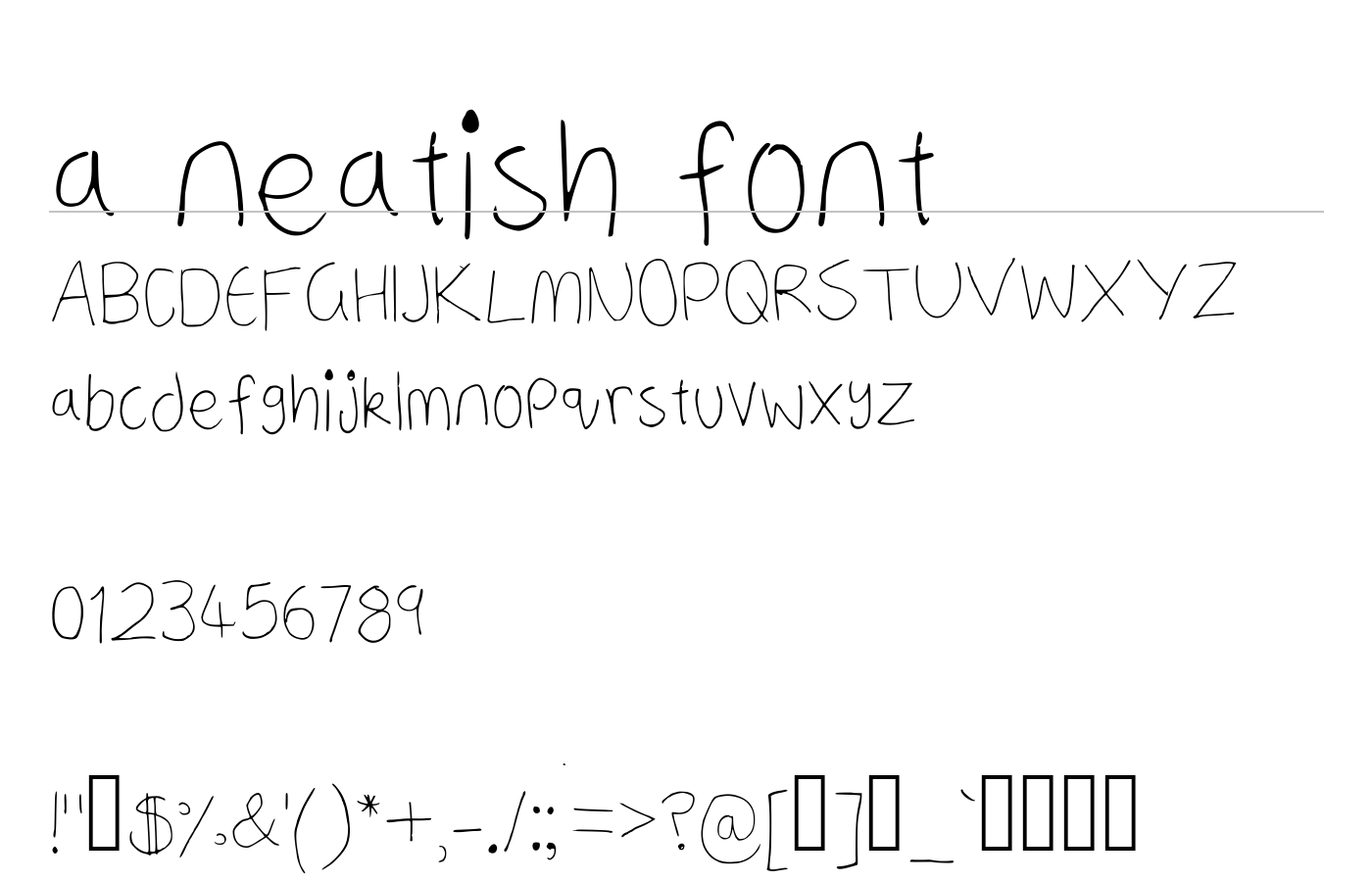
A Neatish Font is a playful, handwritten sans serif typeface with a light weight and narrow width that gives it a casual and friendly appearance. Its tall x-height and uneven stroke endings add a relaxed, approachable feel, making it perfect for informal designs, children’s projects, personal branding, and creative headlines where a quirky and human touch is desired.
a neatish font